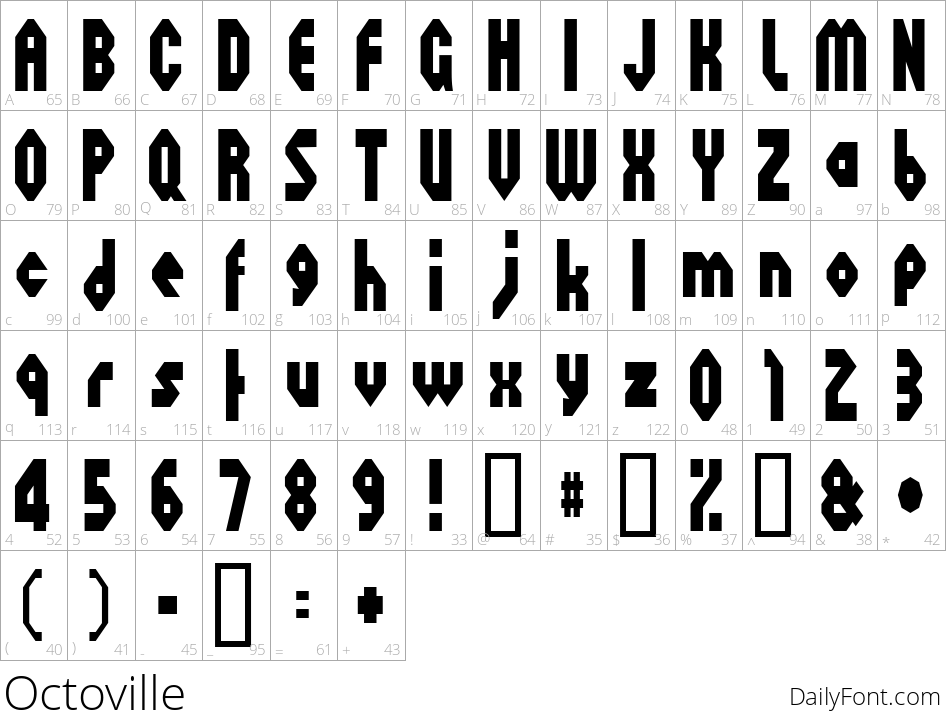
Octoville
Angular tech caps with diamond-cut counters and notches
Octoville cuts its bold letters with angular, diamond-faceted corners, giving each one a gem-cut, geometric quality rather than smooth curves or straight blocks. It reads as bold and a little otherworldly.
It suits fantasy game logos, retro arcade branding, adventure-themed titling, and any design that wants a distinctive, faceted geometric look. Free to download for personal use.